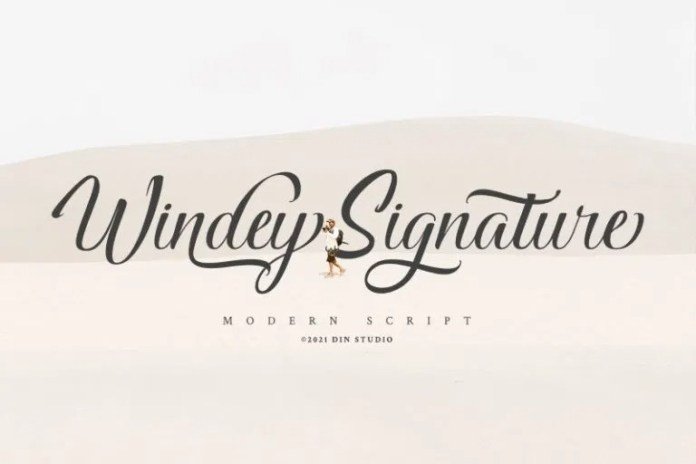
Windey Signature Font
This is a flowing, beautiful and Romantic Calligraphy font, described with a touch of elegance, perfect for your favorite projects. It encapsulates the essence of elegance and modernity. With its clean script-type design and curved indentations, this font will take your projects to the next level!